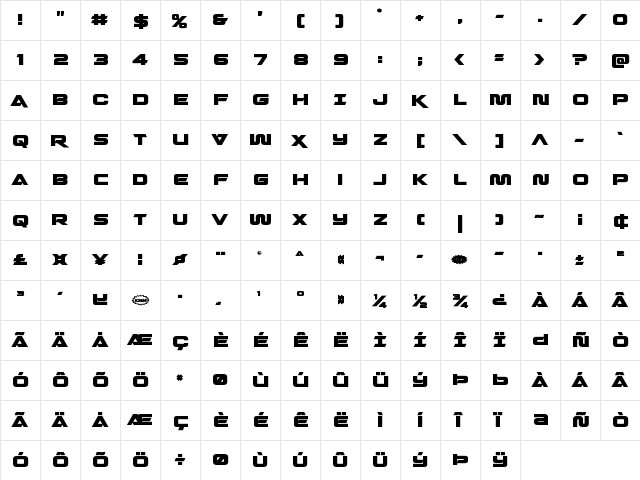
Quark Storm Bold Bold
Design Context for Quark Storm Bold Typeface
Quark Storm Bold offers clean, dependable letterforms without strong stylistic allegiance, making it a practical choice for designers who need flexibility. The heavy weight commands attention and anchors typographic hierarchies.